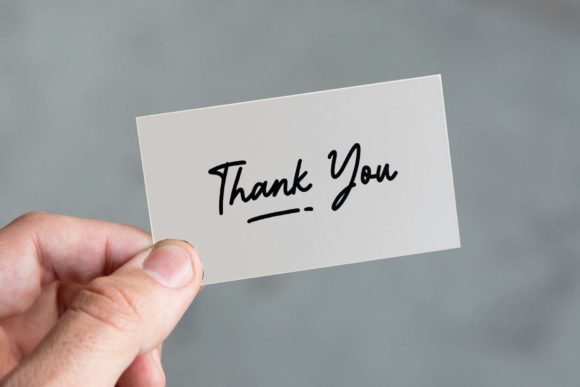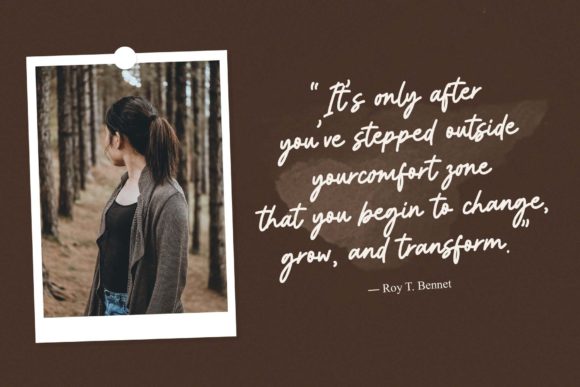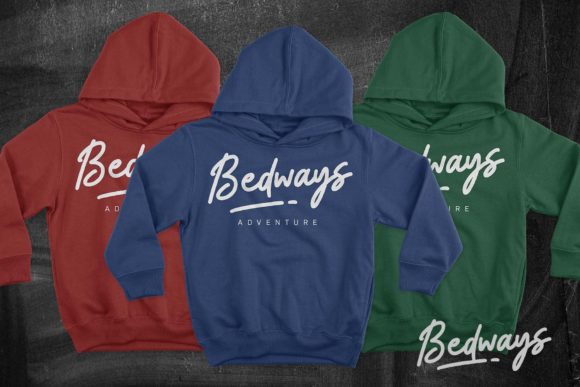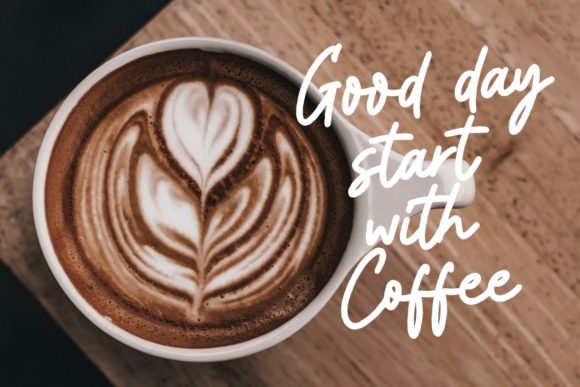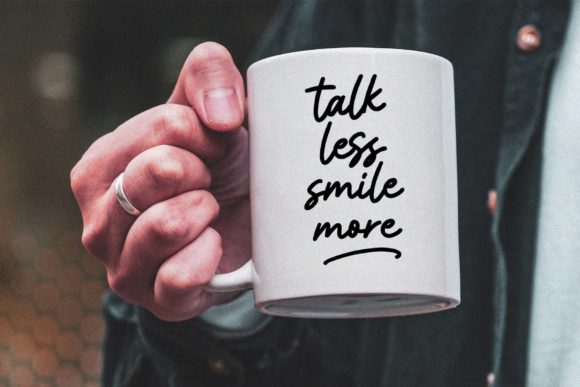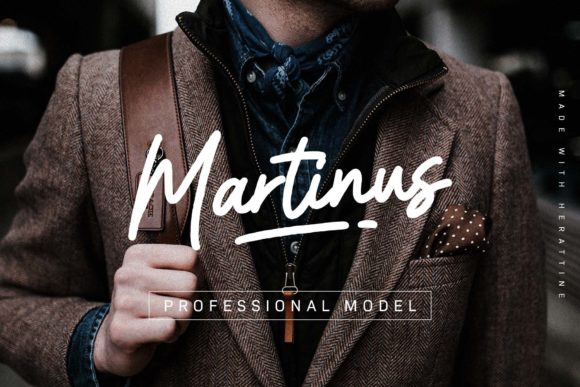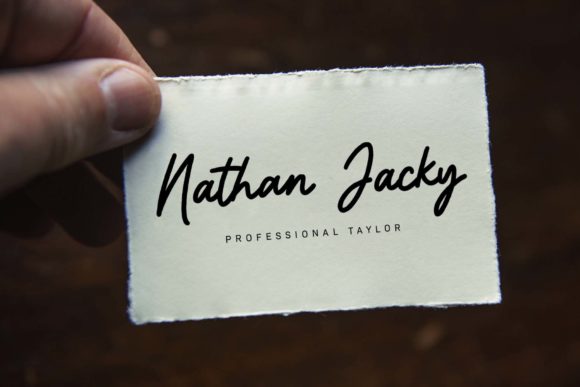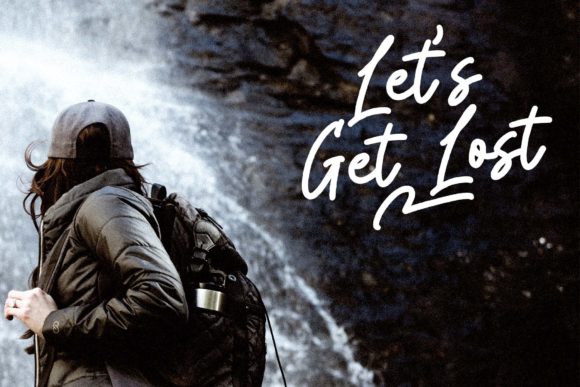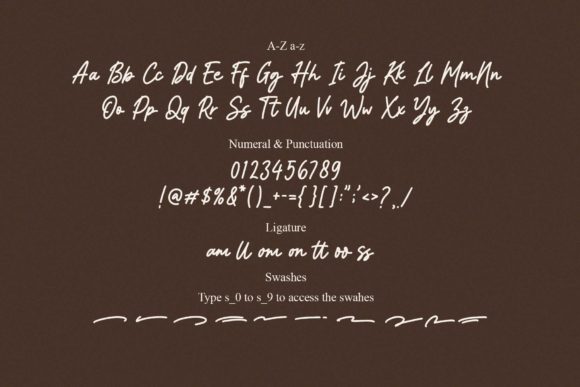
About Herattine Font
Herattine is a romantic and sweet calligraphy typeface with characters that dance along the baseline. It will add a luxury spark to any design project that you wish to create!